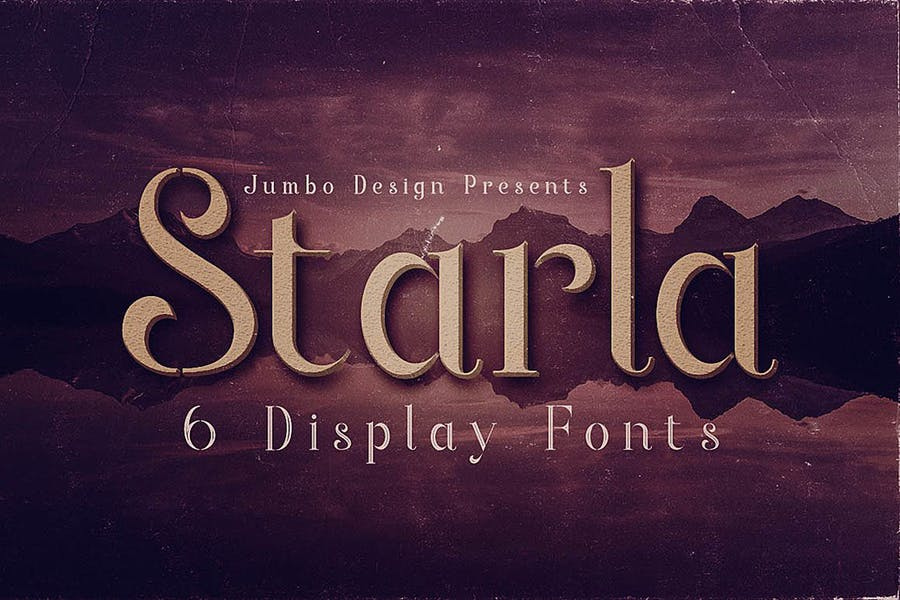
Starla - Display Font
Starla - Display Font is perfect for glamorous event posters, luxury fashion branding, entertainment industry logos, celebrity magazine headlines, red carpet event signage, beauty salon identity, high-end jewelry packaging, premium cosmetics branding, upscale nightclub materials, fashion show graphics, stardom-themed campaigns, and dazzling advertising layouts.
Starla - Display Font is exciting because it captures the sparkling glamour and star-studded elegance of Hollywood's golden age with luminous letterforms that seem to shimmer under spotlights, creating an irresistible combination of celebrity appeal and luxury sophistication that instantly elevates any project to red-carpet status.
The Starla - Display Font family includes glamorous variations: Regular, Bold, Light, Glitter, Outline, and Shadow styles, providing designers with a complete star-power typography toolkit to create dazzling compositions that celebrate fame, luxury, and the magnetic appeal of celebrity culture and entertainment excellence.
Step into the spotlight with Starla - Display Font Free Download. This dazzling display typeface brings Hollywood glamour and celebrity elegance to contemporary design projects. Whether you're creating entertainment industry branding, designing luxury event materials, or developing high-profile marketing campaigns, Starla - Display Font delivers unmatched star quality and sophisticated appeal that commands attention.
The font's brilliantly crafted letterforms reflect the sparkling charisma and polished perfection of celebrity culture, with elegant curves and refined details that catch the eye like diamonds under stage lights. Each character demonstrates the perfect balance of approachable charm and untouchable glamour that defines true star power.
Starla - Display Font excels in creating memorable brand experiences for businesses in entertainment, luxury, and lifestyle sectors that cater to audiences seeking glamour and sophistication. Its luminous presence transforms ordinary communications into extraordinary statements that resonate with consumers who appreciate celebrity style and premium experiences.
Professional designers appreciate how Starla - Display Font maintains its glamorous character while providing exceptional versatility across high-end applications. The comprehensive style range ensures optimal performance from intimate luxury packaging to massive entertainment billboards, maintaining consistent star quality and sophisticated appeal.
This remarkable typeface brings instant celebrity credibility to luxury ventures and entertainment-focused businesses. From talent agencies to luxury fashion houses, Starla - Display Font creates lasting impressions that communicate excellence, glamour, and the irresistible magnetism that defines true stardom and luxury lifestyle.